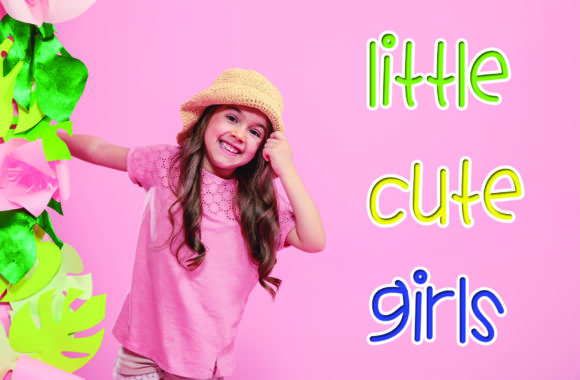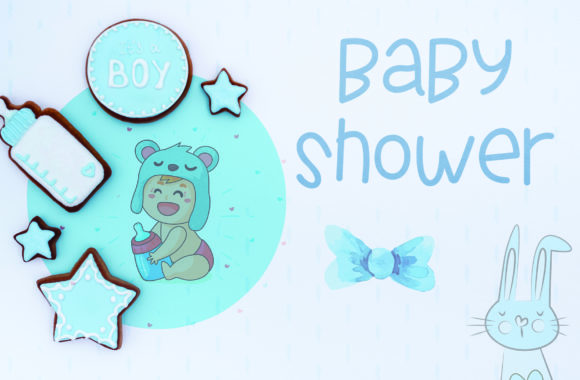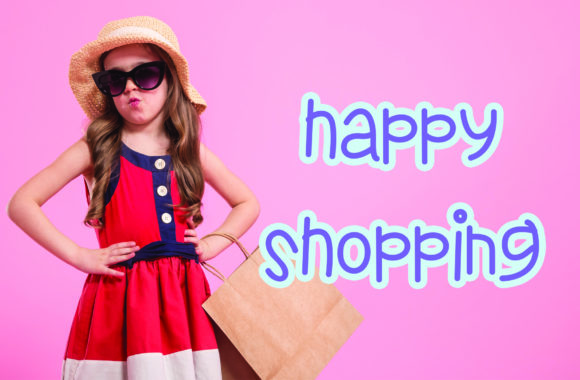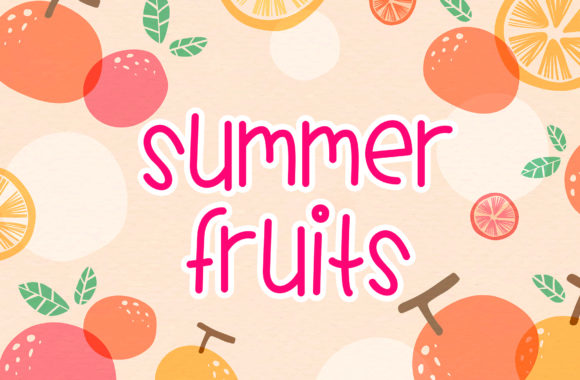
Sweety Font
About Sweety Font
Sweety is a playful and unique handwritten font with short lines that imitates a child’s writing which is why it is very suitable for children’s projects or children-themed designs.